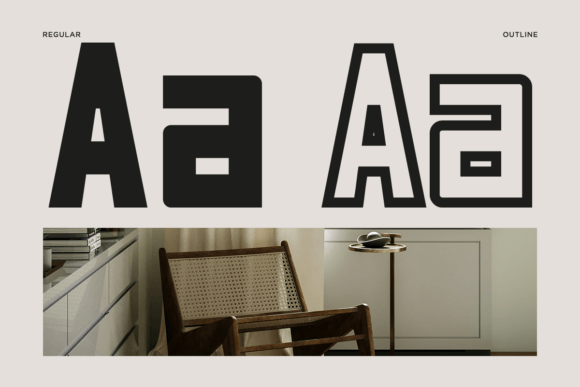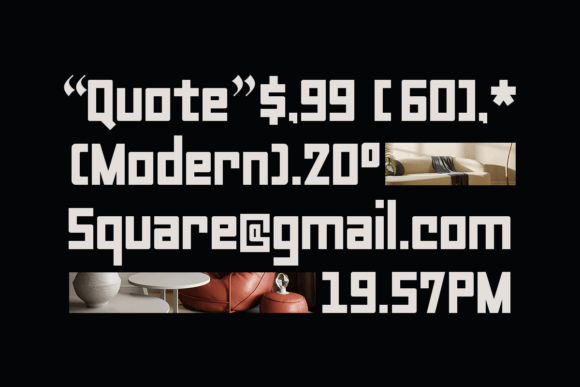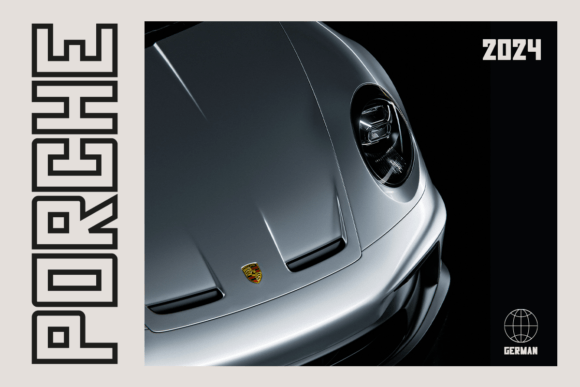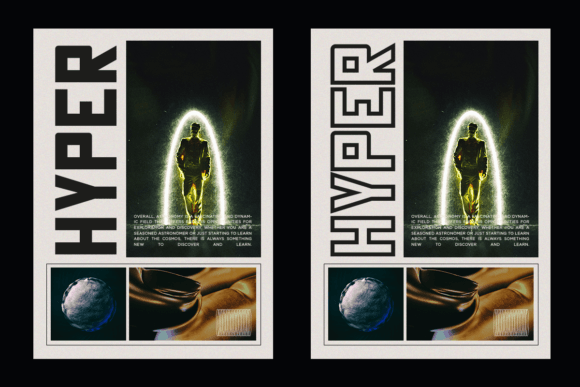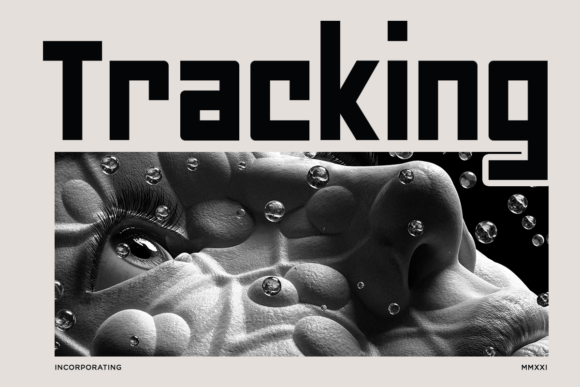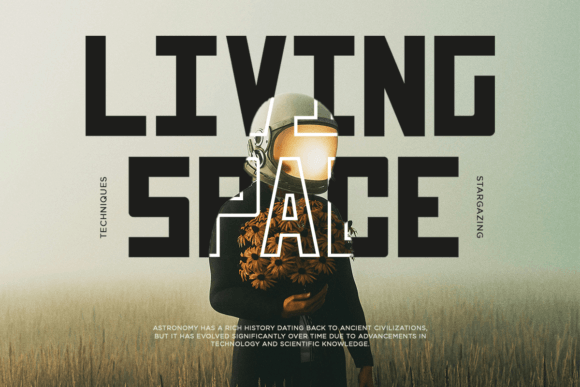
Introducing Angle Square Font: The Ultimate Design Game-Changer
Are you tired of using the same old fonts in your designs? Do you want to add a touch of modernity and uniqueness to your creative projects? Look no further than Angle Square Font, a revolutionary font made from square shapes that is taking the design world by storm.
What is Angle Square Font?
Angle Square Font is a cutting-edge font that is composed of square shapes, giving it a distinctive and futuristic look. This font is perfect for designers and crafters who want to add a dash of modernity to their work. With its unique and creative style, Angle Square Font is sure to make your designs stand out from the crowd.
The Benefits of Using Angle Square Font
So, why should you use Angle Square Font in your designs? Here are just a few benefits of this amazing font:
- Unique Style: Angle Square Font has a one-of-a-kind style that will set your designs apart from others. Its square shape composition gives it a modern and edgy look that is sure to grab attention.
- Versatility: This font is incredibly versatile and can be used in a wide range of design projects, from logos and branding to posters and social media graphics.
- Customization: With Angle Square Font, you can customize your designs to fit your brand’s style and aesthetic. Experiment with different colors, sizes, and arrangements to create a look that is uniquely yours.
How to Use Angle Square Font in Your Designs
Using Angle Square Font in your designs is easy. Here are a few tips to get you started:
- Pair it with Other Fonts: Angle Square Font pairs well with a variety of other fonts, so don’t be afraid to experiment with different combinations. Try pairing it with a bold sans-serif font for a striking contrast.
- Experiment with Colors: The square shape composition of Angle Square Font makes it perfect for use with bold, bright colors. Try experimenting with different color schemes to find the one that works best for your design.
- Use it in Logos and Branding: Angle Square Font is perfect for use in logos and branding projects. Its unique style makes it a great choice for companies that want to stand out from the crowd.
- Try it in Posters and Social Media Graphics: Angle Square Font is also great for use in posters and social media graphics. Its modern style makes it perfect for grabbing attention and adding a touch of sophistication to your designs.
Tips and Tricks for Getting the Most out of Angle Square Font
Here are a few tips and tricks for getting the most out of Angle Square Font:
- Pay Attention to Size: Make sure to adjust the size of Angle Square Font to fit your design. A larger size can be perfect for headlines, while a smaller size can be used for body text.
- Experiment with Arrangement: Don’t be afraid to experiment with different arrangements of Angle Square Font. Try stacking the squares or using them in a staggered formation to add visual interest to your design.
- Use it in Combination with Other Design Elements: Angle Square Font can be used in combination with other design elements, such as images and shapes, to create a unique and eye-catching design.
| Font Name | Angle Square Font |
| Author | RagamKata Studio |